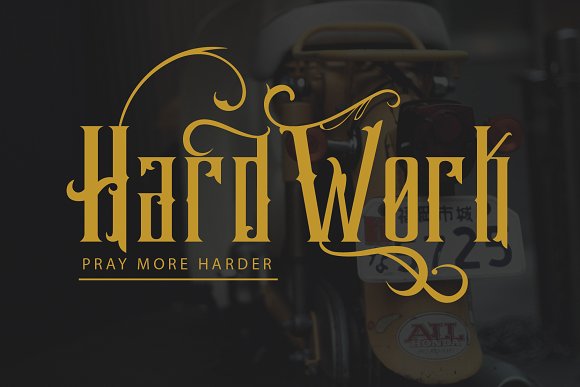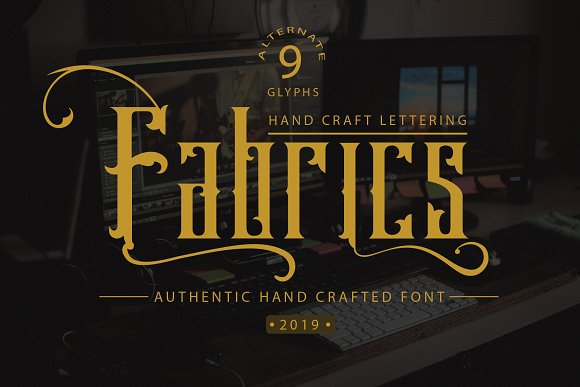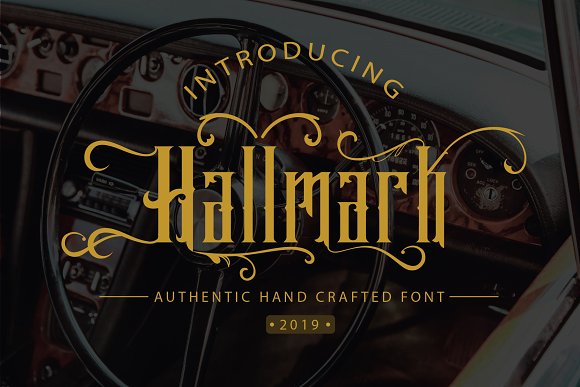
Hallmark Font
Hello there, here is Hallmark font, it’s perfect for you to give your design a vintage touch. This is an original hand writing font, perfect for give your design an authentic touch.